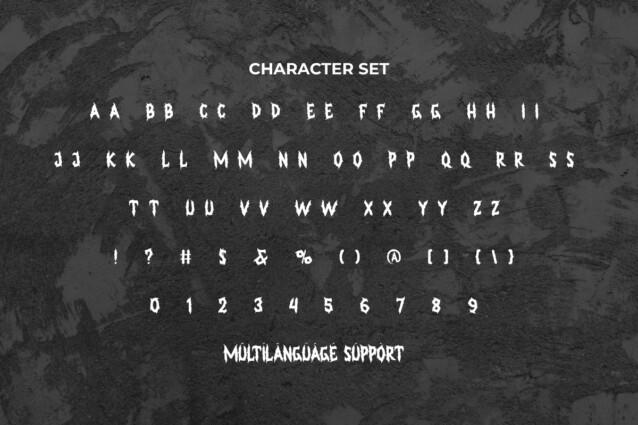
BadLess Font
Badless Font is a strong valiant display font with blackmetal style, created by NoahType. This font has a creepy look with thorns all over the characters. It will be perfect for any designs, such as brand image, cover, custom design, invitation, label, marketing material, menu, poster, printing, product packaging, quotes, signage, website, and many more!
Badless Font includes full set of ALL CAPS for Uppercase and Lowercase Basic Characters, Numerals, Punctuation, and Symbol. This font will give awesome touch and also a perfect choice for many industries, such as accessories, advertising, art, barber shop, café, fashion, game, movie, printing, publishing, etc.